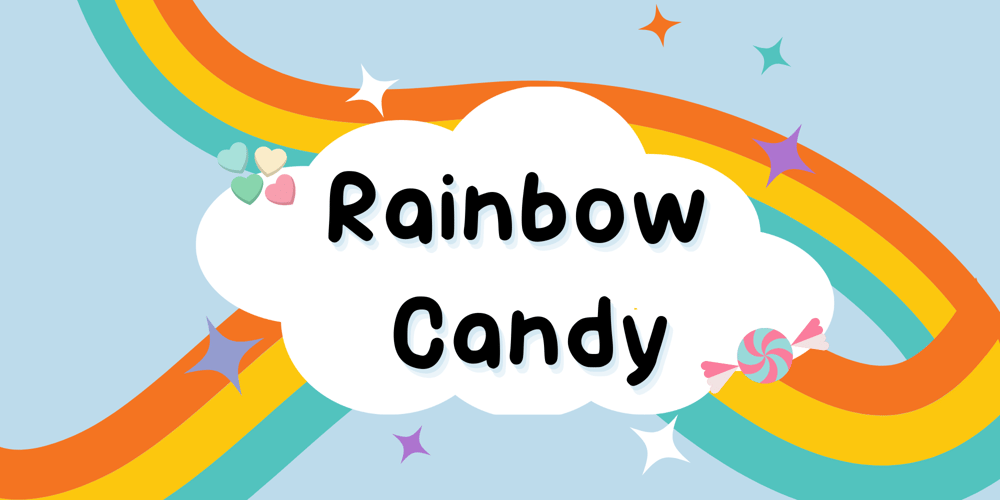
Rainbow Candy Font Family was designed by Thitawan Noenpoempisut and published by The Gelato. Rainbow Candy contains 1 styles and family package options. Rainbow Candy font is a very neat handwritten font that gives a cute and tidy note-taking style!Its semi-bold weight conveys relaxation and cuteness to your projects. It offers support for all the characters in English, Italian, Spanish, French, and German as well as standard punctuation glyphs. It is perfectly suitable for numerous use such as quotations, banners, logos, product packaging, titles, headers, menu lists, and even for digital note-taking!